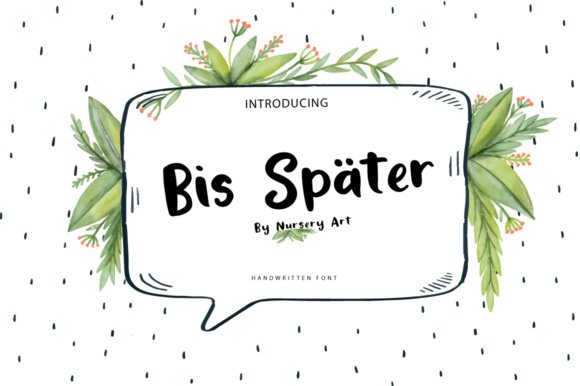
The Perfect Script Font for Your Next Design Project
You know that feeling when you’re brainstorming ideas for your next design project and you’re stuck? The blank page stares back at you, and your creativity is nowhere to be found? That’s when you need a little spark to get those ideas flowing. For me, it’s often a new font that catches my eye and sets my imagination ablaze.
Enter the Bis Spater Font, a beautiful handwritten script font that’s perfect for any design project that needs a bold, striking touch. Whether you’re creating a logo, a brochure, or a website, this font is sure to make your design stand out. And the best part? It’s incredibly versatile, so you can use it for a wide range of projects, from elegant wedding invitations to edgy street art posters.
What makes the Bis Spater Font so valuable for designers is its ability to add a personal touch to your work. With its unique, hand-drawn feel, it’s the perfect way to convey your brand’s personality and style. And with its bold, striking look, it’s sure to grab the attention of your audience and leave a lasting impression.
Bis Spater Font Key Features
- Unique Characteristics: Bis Spater Font features a unique blend of modern and vintage elements, creating a distinctive aesthetic that sets it apart from other fonts.
Bis Spater Font Review
As a designer, I’ve had the chance to work with the Bis Spater Font, and here’s my honest review.
- The font’s modern and sleek aesthetic makes it perfect for contemporary designs.
- The high x-height and open counters make it highly legible, even at small sizes.
- The font’s versatility makes it suitable for a wide range of applications, from headlines to body text.
- The font’s unique characteristics, such as the distinctive ‘e’ and ‘a’ shapes, add a touch of personality to any design.
- The font’s lack of italic and bold weights may limit its use in certain situations.
- The font’s openness may make it difficult to read in certain contexts, such as small print or low-resolution displays.
- The font’s distinctive characteristics may not be to everyone’s taste, and may not be suitable for all design styles.
Overall, I think the Bis Spater Font is a solid choice for designers looking for a modern and stylish font. While it has some limitations, its versatility and unique characteristics make it a great addition to any design arsenal.
Tips for Getting the Most Out of Bis Spater Font
Use Bis Spater font for titles, headings, and body text to create a cohesive and sophisticated design.
Combine Bis Spater font with other elegant fonts to create a unique and stylish look.
Use Bis Spater font in a variety of contexts, from corporate branding to personal projects, to add a touch of sophistication and elegance.
Bis Spater font is ideal for:
Corporate branding and identity.